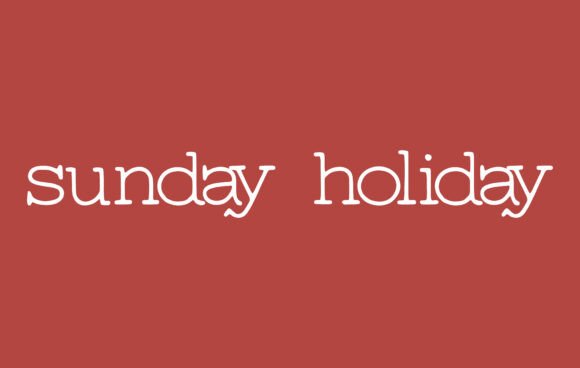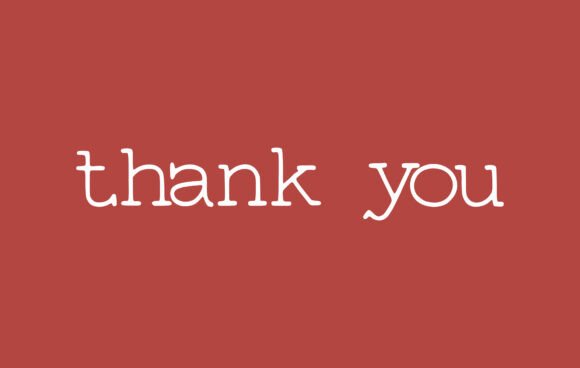
The Art of Elegance: Discovering Artifont Font
I’ll never forget the time I was working on a branding project for a luxury boutique hotel. My client wanted a font that exuded sophistication and elegance, but still had a touch of creativity. I scoured the internet, tried countless fonts, but nothing seemed to fit the bill. That was until I stumbled upon Artifont Font. ✨
Its unique blend of classic serif elegance and handcrafted charm instantly won me over. I knew right then and there that Artifont was the perfect fit for my client’s project. In this article, I’ll share my love for Artifont, its features, and how to make the most of it in your designs.
An Honest Review of Artifont Font
What I Love About Artifont
- ✅ Elegant letterforms with a refined aesthetic
- ✨ Smooth curves and subtle irregularities for a handcrafted feel
- ✅ Perfect for branding, logos, editorial design, invitations, and artistic projects
- ✅ Highly versatile, suitable for both classic and modern designs
While Artifont is an exceptional font, there are a few things to keep in mind: 🤔
- Experiment with OpenType features, such as stylistic alternates, to add visual interest
The Story Behind Artifont Font
Artifont was designed with the intention of blending traditional serif elegance with a handcrafted, artistic feel. Its creator aimed to craft a font that would add a touch of sophistication and whimsy to any design. 💫
The design process involved meticulous attention to detail, from the subtle irregularities in the letterforms to the smooth curves and refined lines. The result is a font that feels both classic and modern, elegant and creative.
Q: What makes Artifont Font unique?
A: Artifont’s unique blend of classic serif elegance and handcrafted charm sets it apart from other fonts.
Q: Does Artifont support OpenType features?
A: Yes, Artifont supports various OpenType features, including stylistic alternates, glyphs, and ligatures.
Q: Can I use Artifont in non-digital designs?
A: Absolutely! Artifont is perfect for print designs, such as invitations, business cards, and posters.